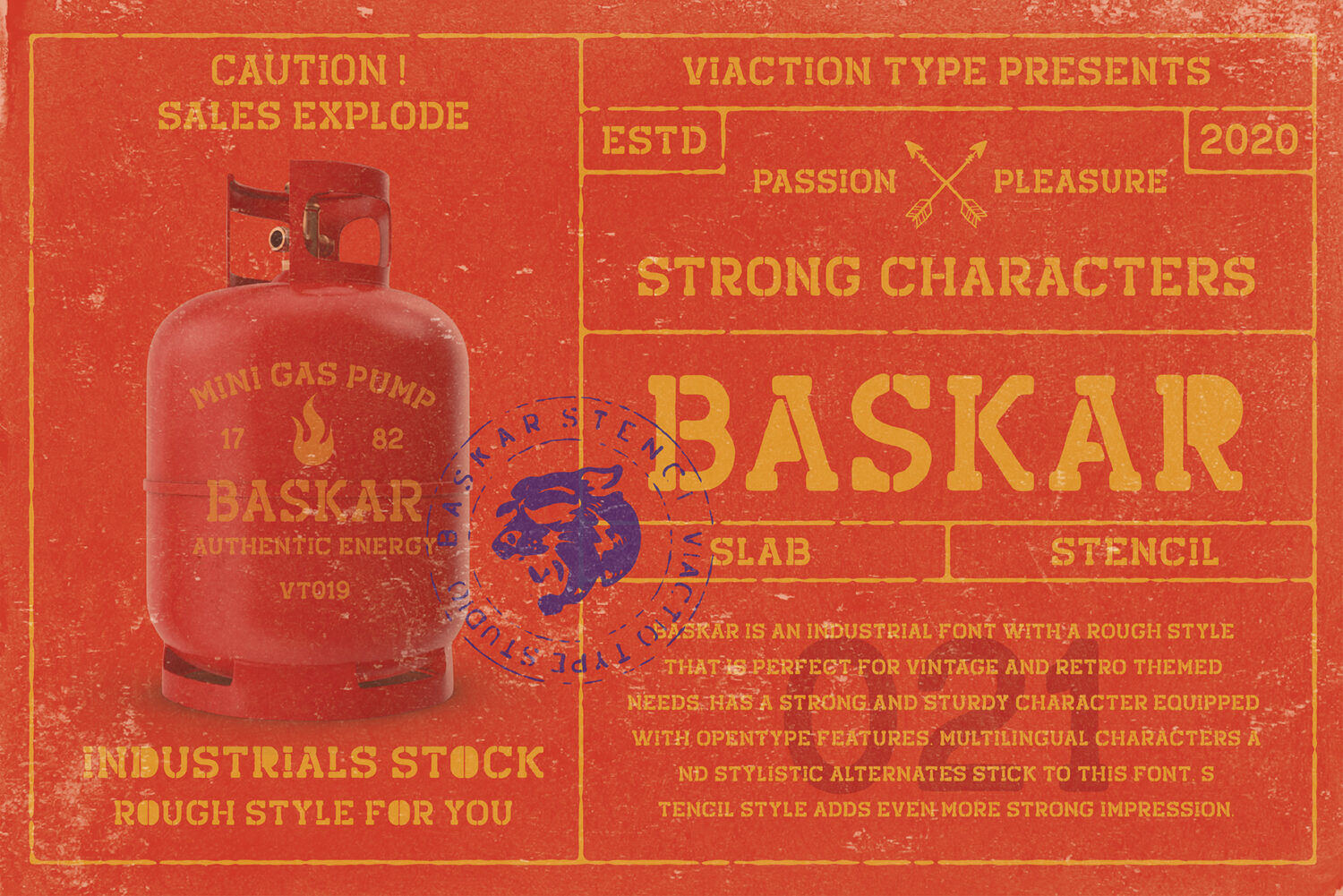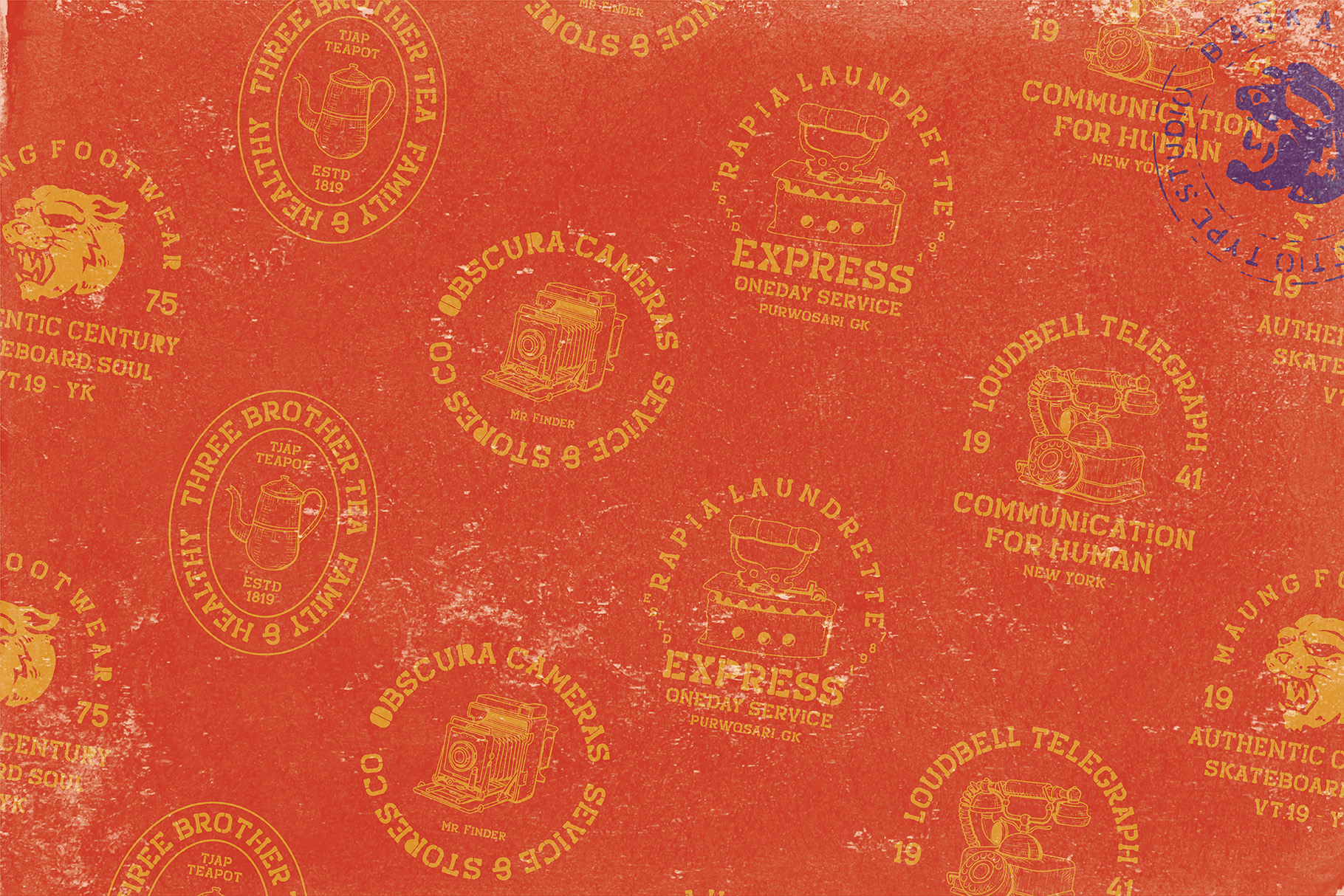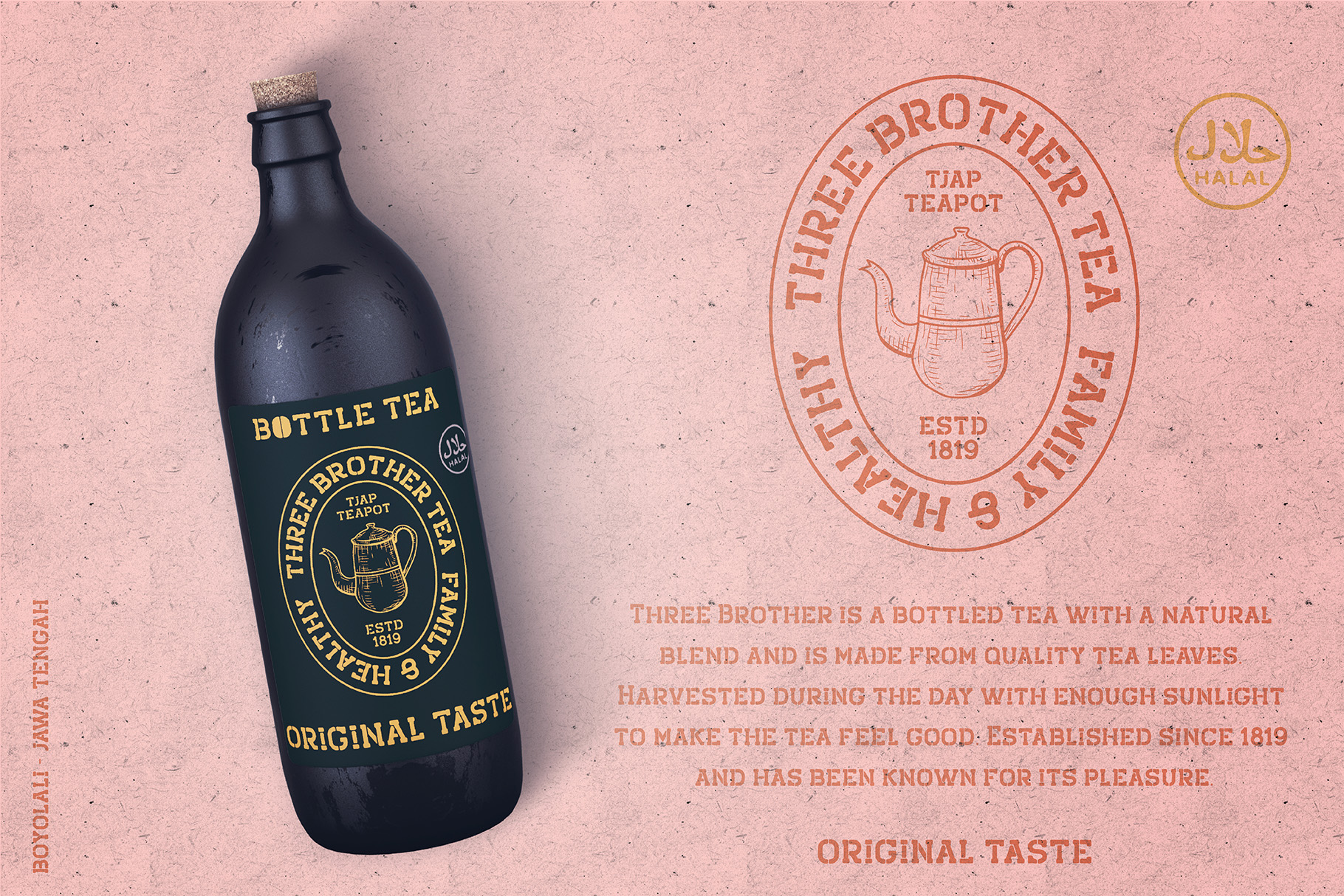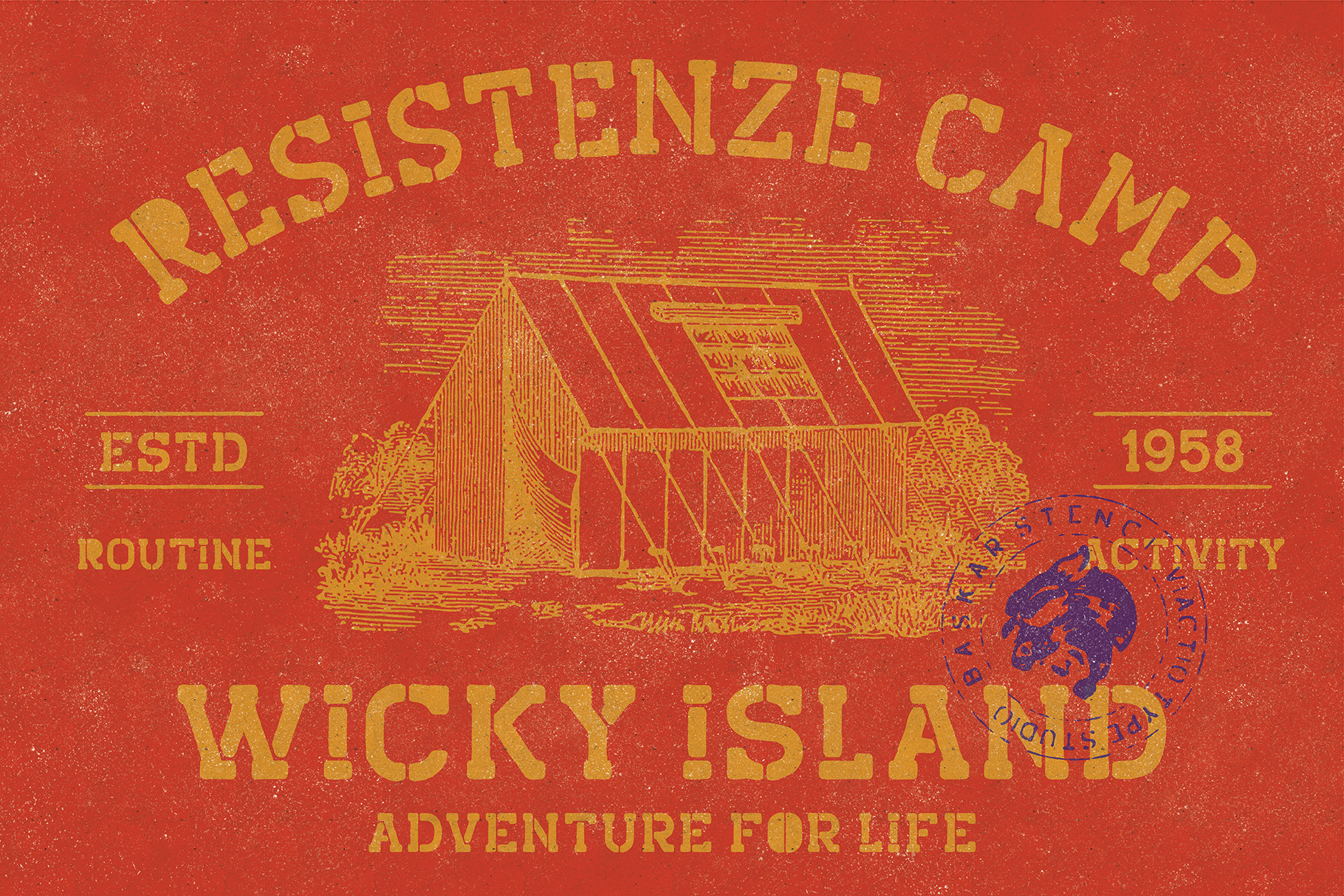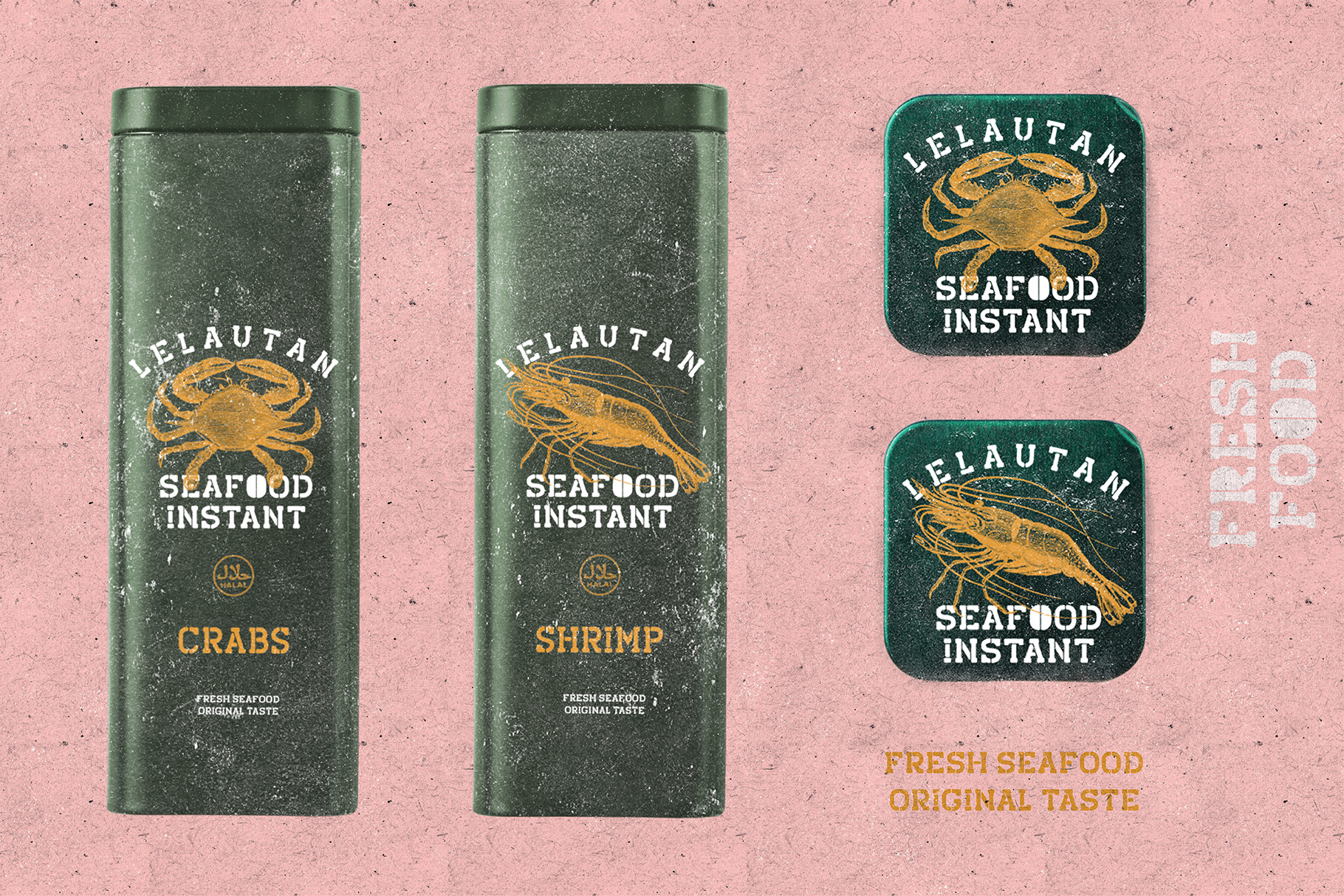
Baskar Free Font
Baskar Free Font is a slab serif nice applied in various products. Complete with multilingual characters and stylistic alternates. It is suitable for a quote, clothing design, vintage logo, label, poster, packaging design, and other designs. This free typeface was designed by talented Viaction Type Co. If you like it don’t forget to check out the full version.